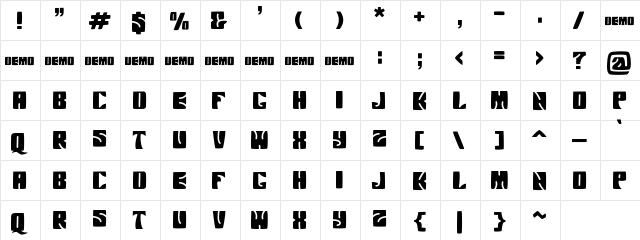
Arthos demo Regular
| Foundry | nami_studio |
| Designer | nami_studio |
Design Context for Arthos demo Typeface
Arthos demo is a composed and adaptable typeface that performs quietly and consistently across a wide range of design contexts.